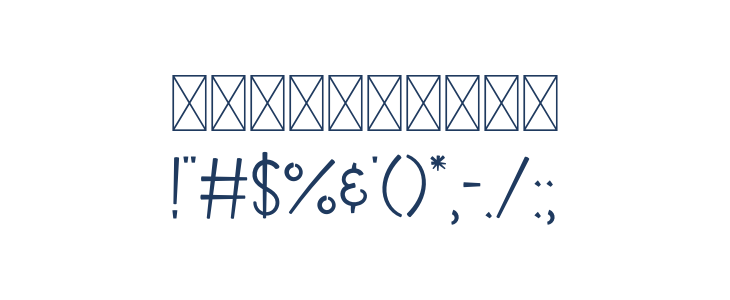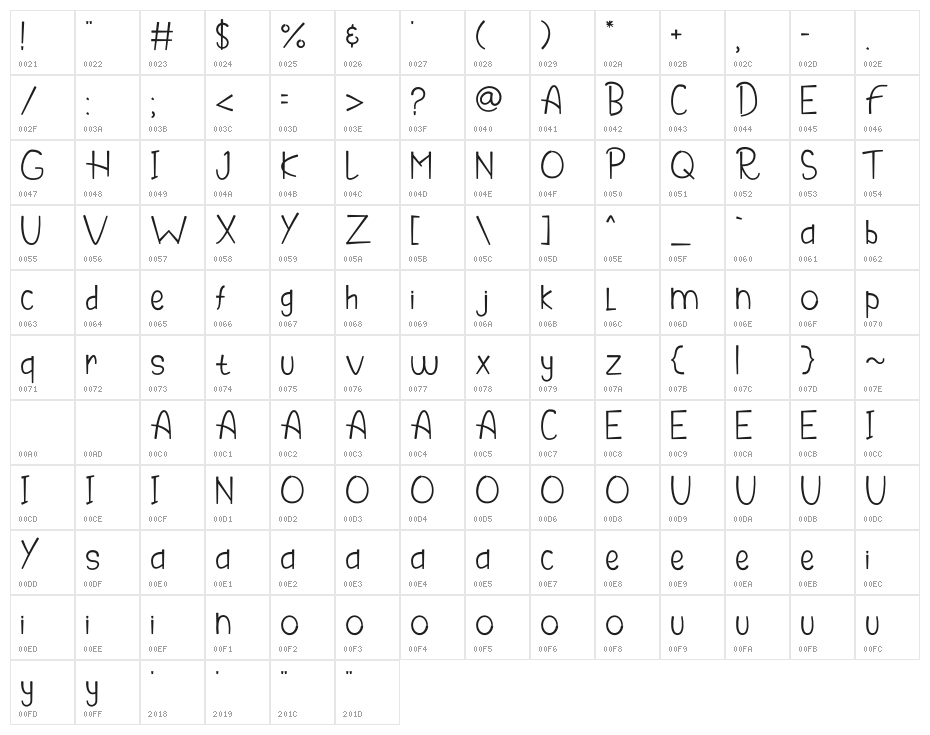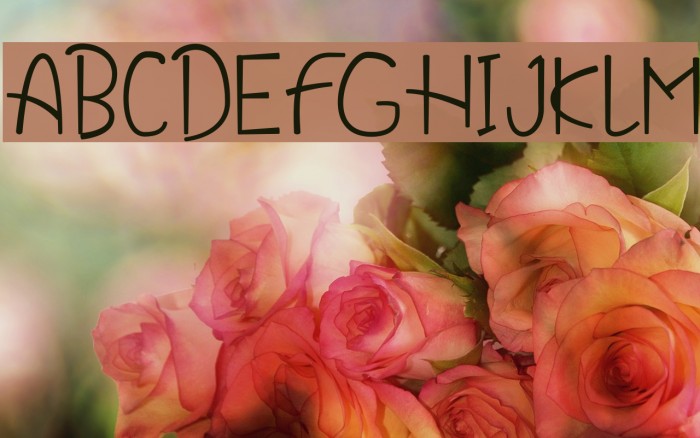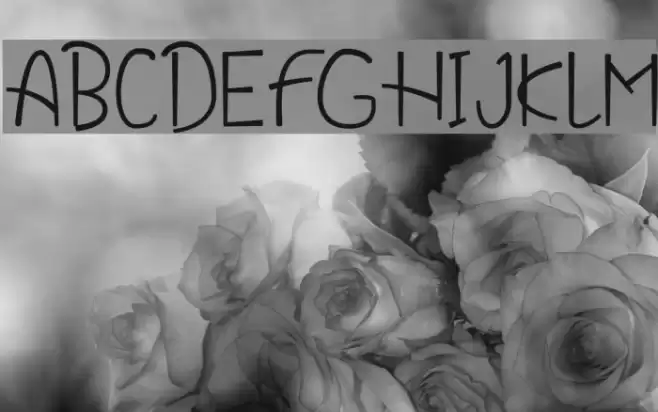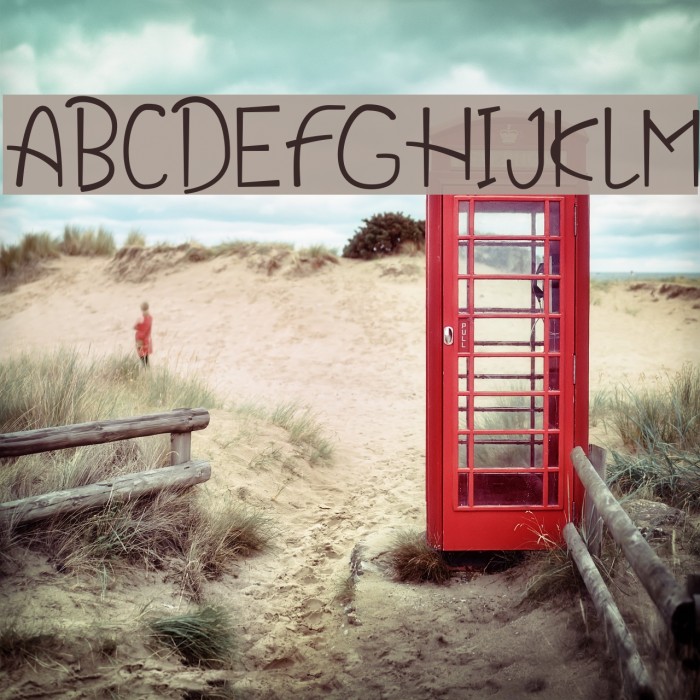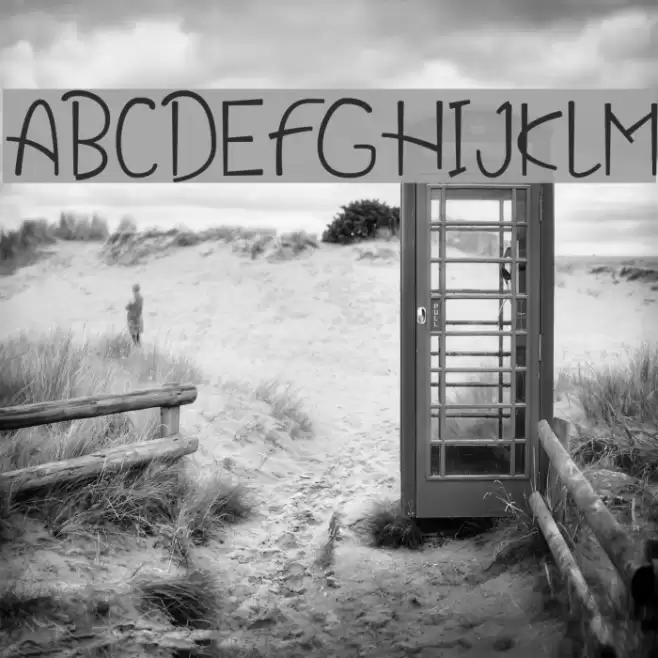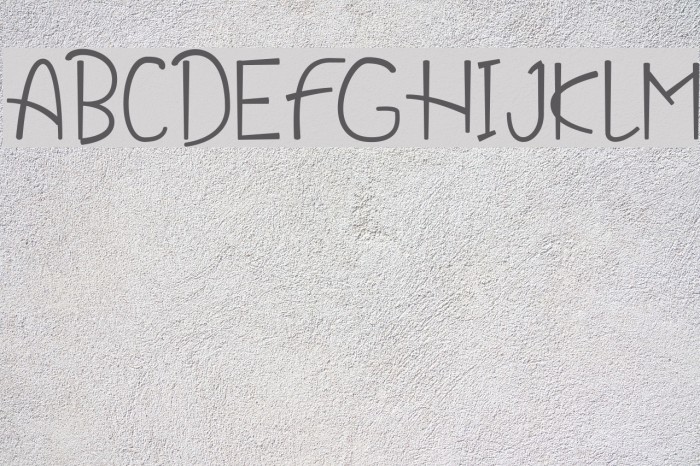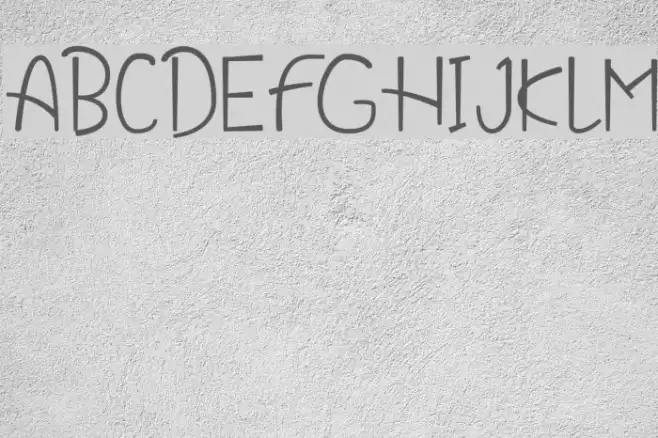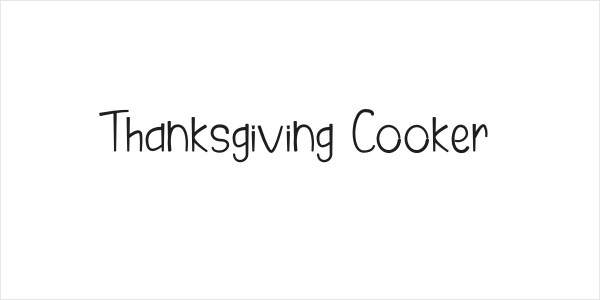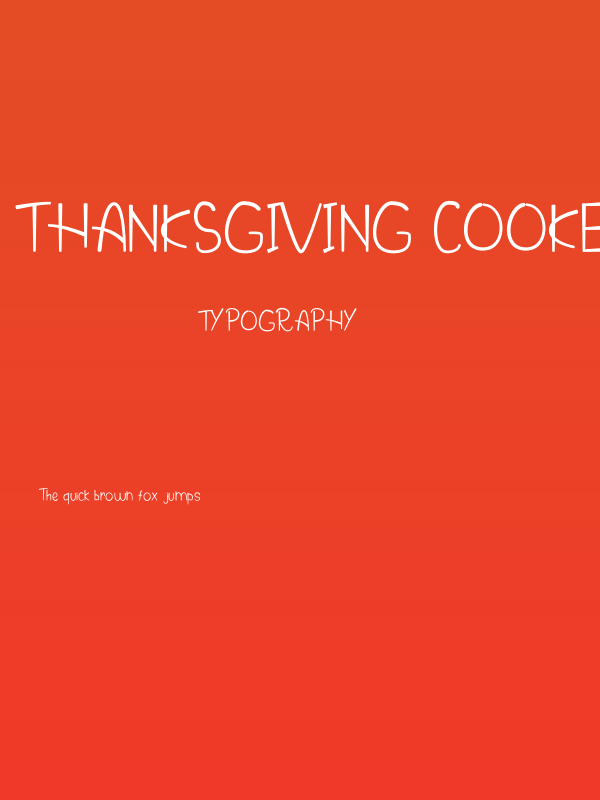
Thanksgiving Cooker Font
Thanksgiving Cooker Description
This font features a playful and whimsical design, characterized by its tall, narrow letterforms and slightly irregular strokes. The uppercase letters exhibit a unique blend of straight and curved lines, giving them a quirky yet elegant appearance. The lowercase letters maintain a consistent style, with rounded edges and a friendly demeanor. The font's overall aesthetic is casual and approachable, making it ideal for projects that require a touch of personality and charm. The special characters are designed to match the playful nature of the alphabet, ensuring a cohesive look across all text elements.
| Proposed Projects | Ideal for children's books, greeting cards, playful branding, and casual invitations. |